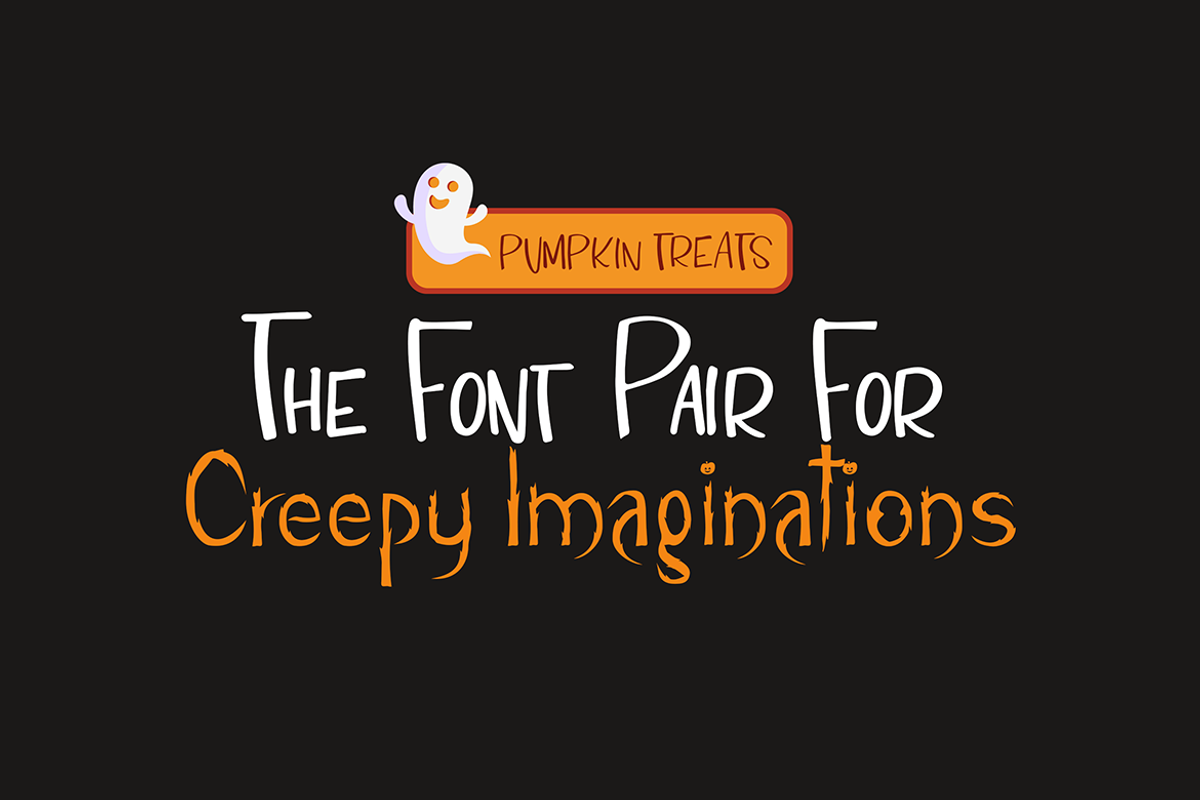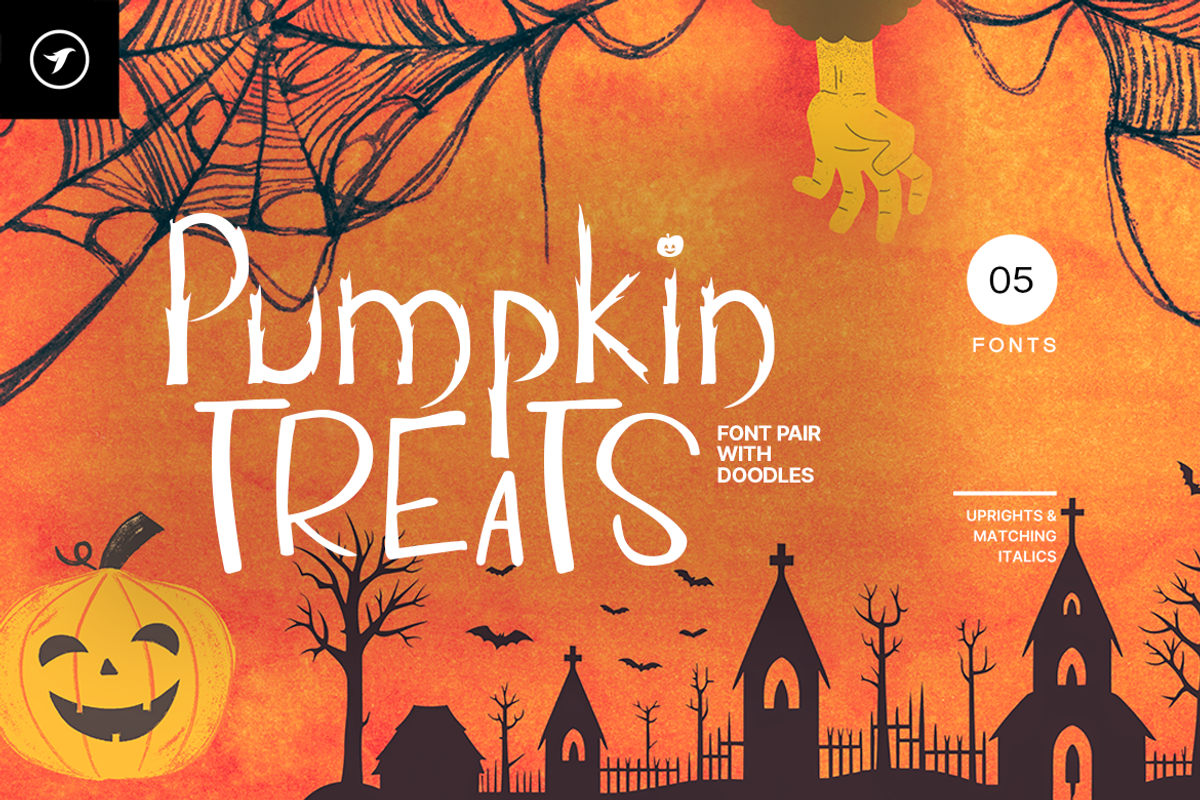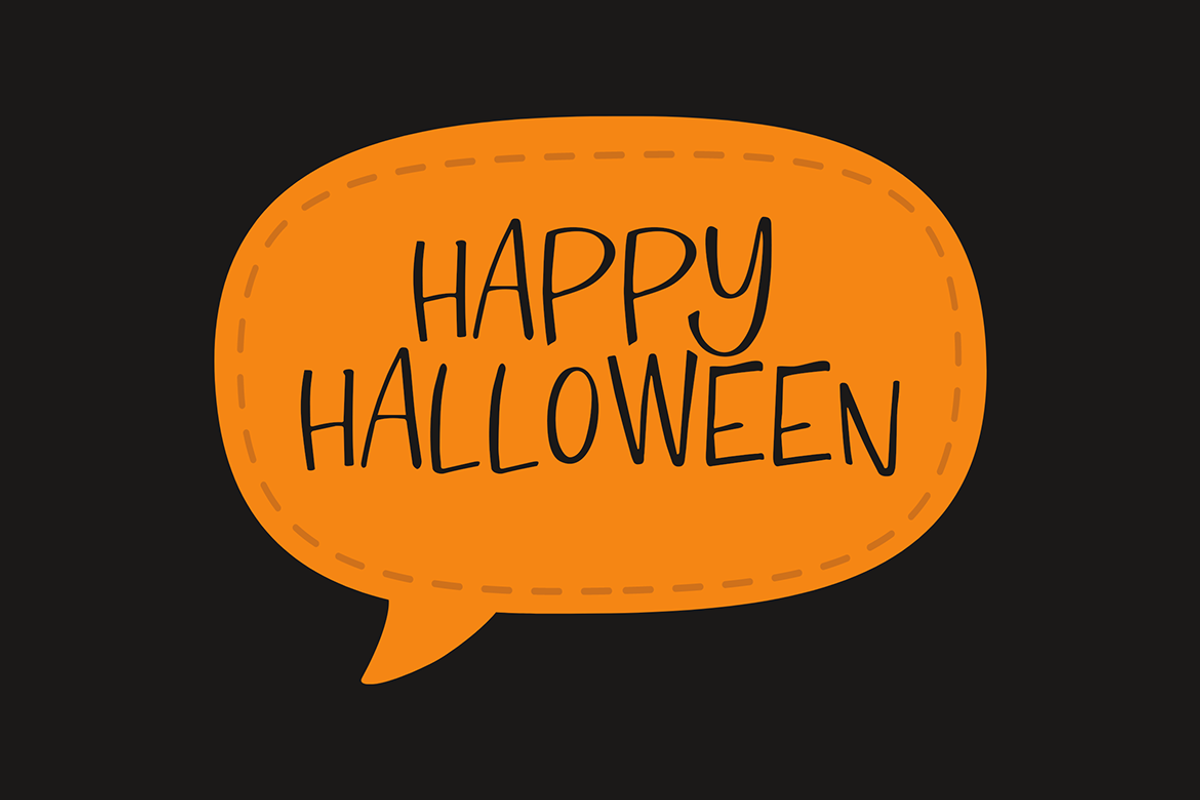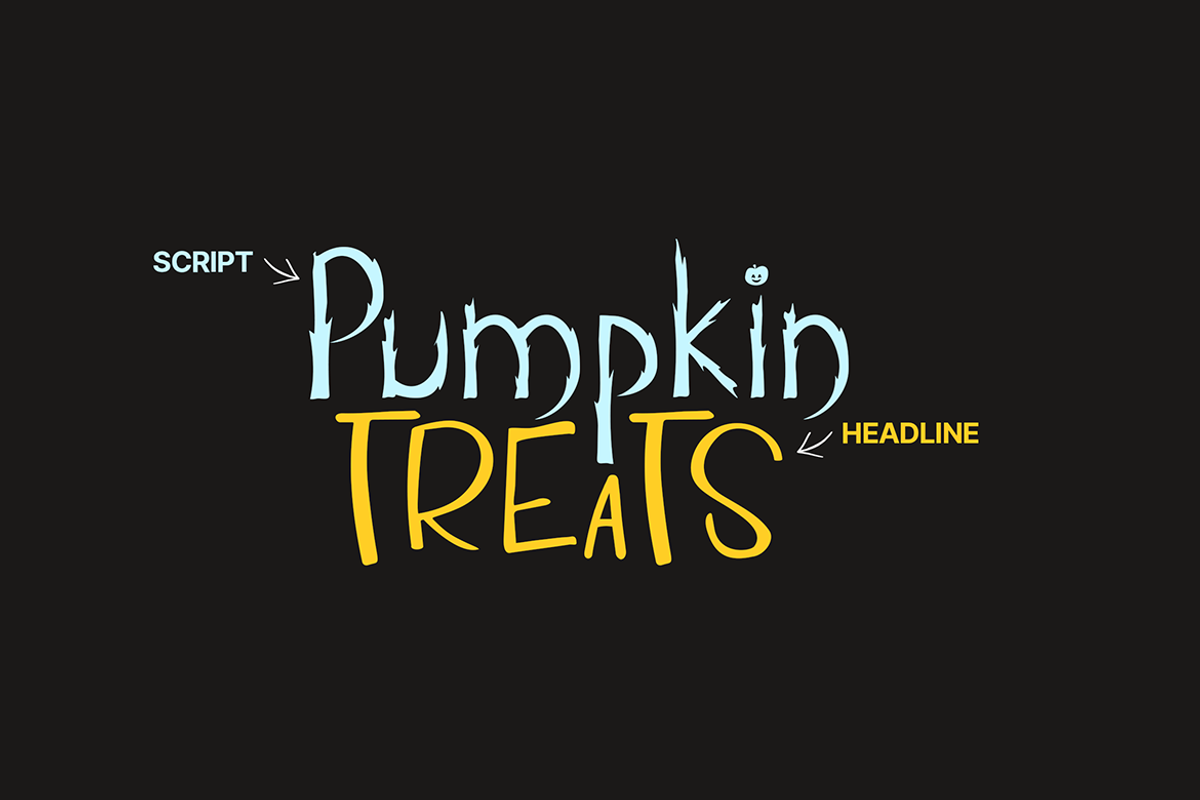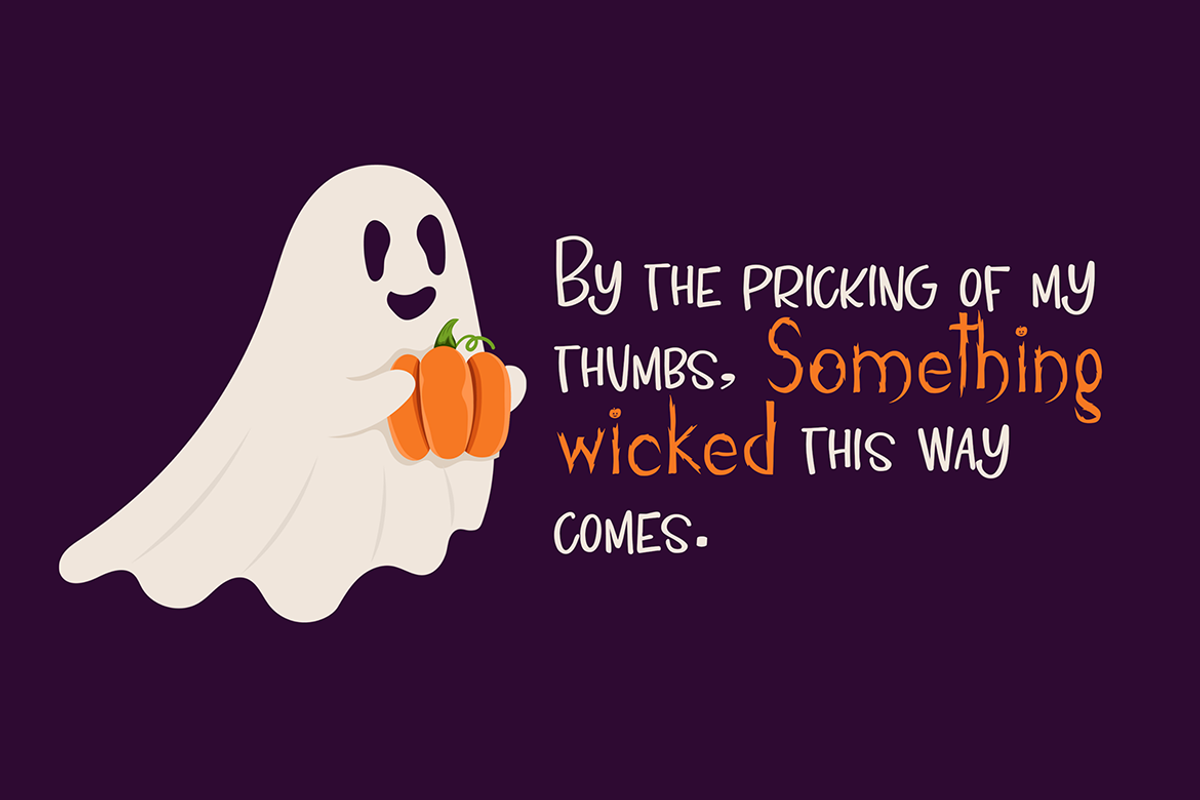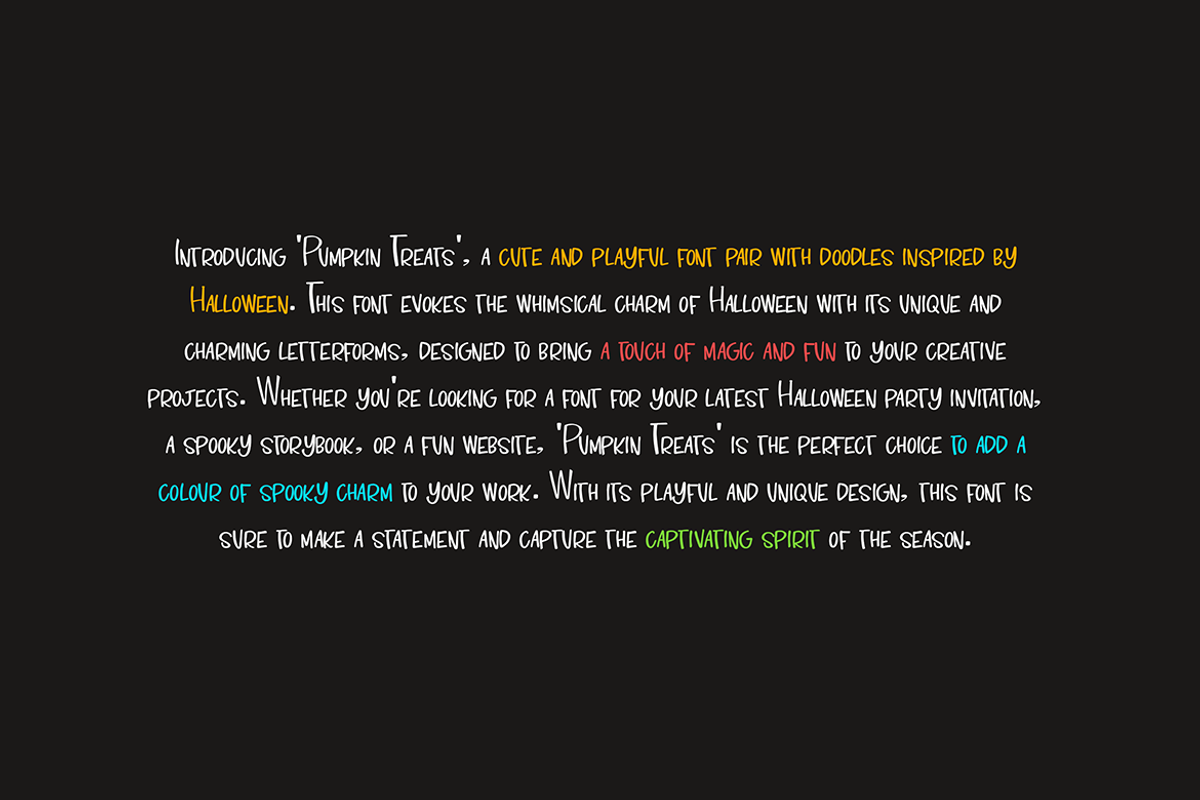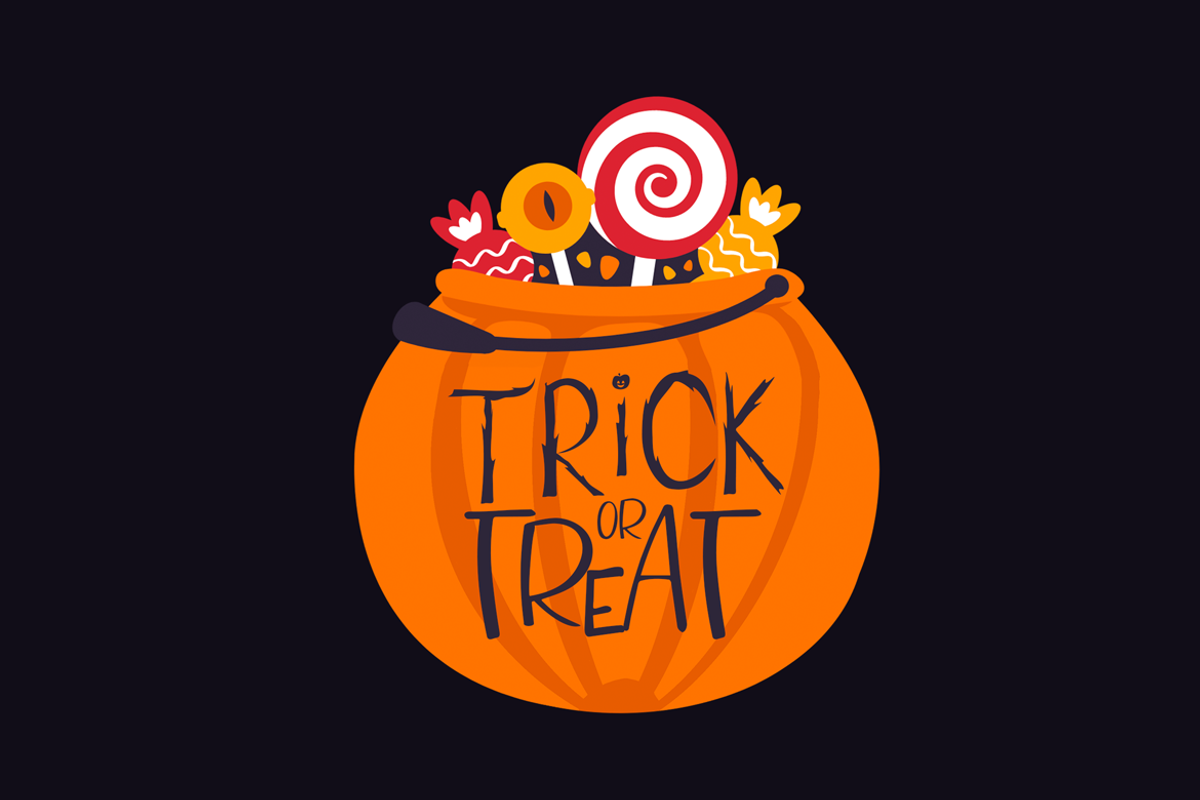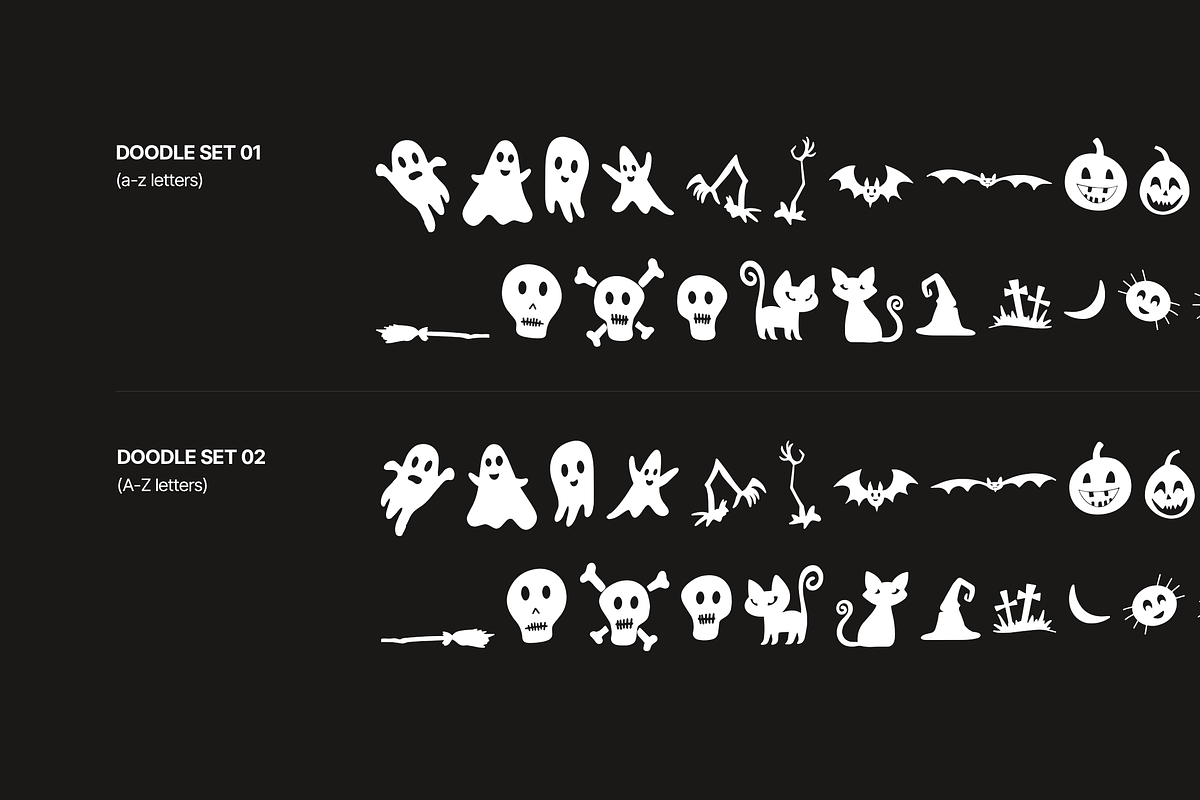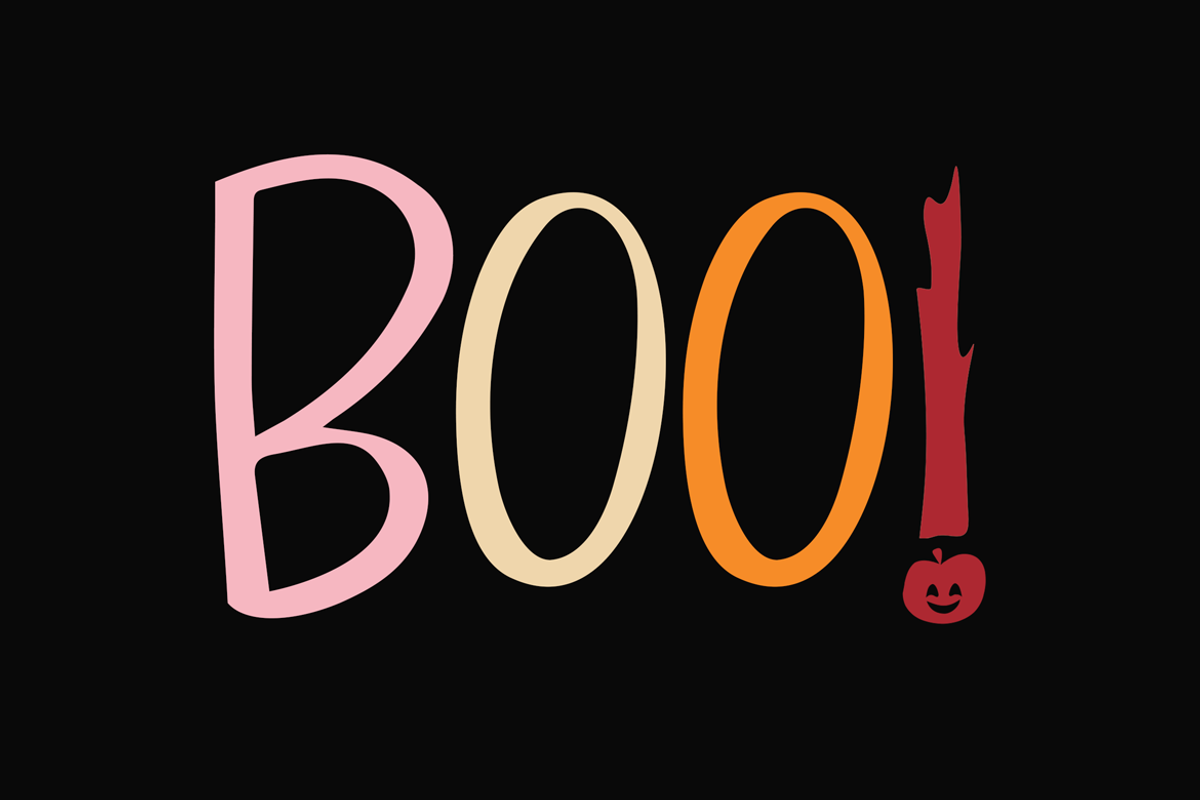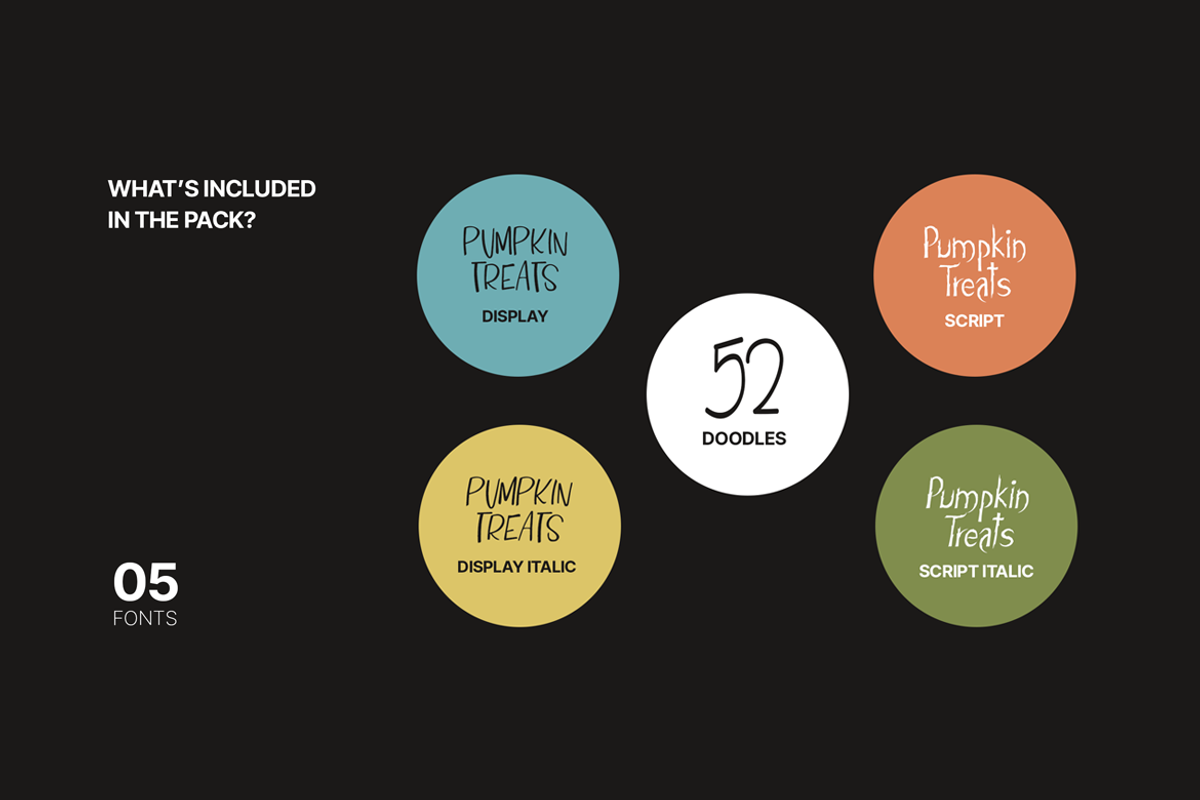
Pumpkin Treats - The Halloween Fonts
Introducing 'Pumpkin Treats", a cute and playful font duo with doodles inspired by Halloween. This font evokes the whimsical charm of Halloween with its unique and charming letterforms, designed to bring a touch of magic and fun to your creative projects.
'Pumpkin Treats" font family contains two fonts (Headline and Script style) and a font containing a set of 56 Doodles handcrafted with a Halloween theme.
Pumpkin Treats - Headline
Pumpkin Treats - Headline Italic
Pumpkin Treats - Script
Pumpkin Treats - Script Italic
Pumpkin Treats - Doodles
Whether you're looking for a font for your latest Halloween party invitation spooky storybook, or a fun website, 'Pumpkin Treats' is the perfect choice to add a colour of spooky charm to your work, with its playful and unique design. This font is sure to make a statement and capture the captivating spirit of the season. Please see the demo graphics to get an idea about the potential of these fonts.
'Pumpkin Treats' fonts come with extended language support including Western European, Central European, and South-Eastern European character sets (total of 250+ glyphs).